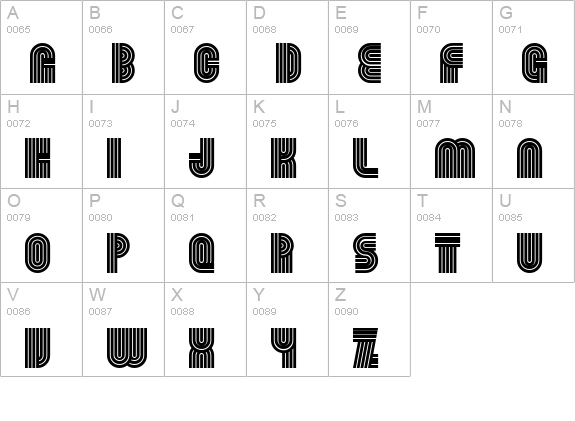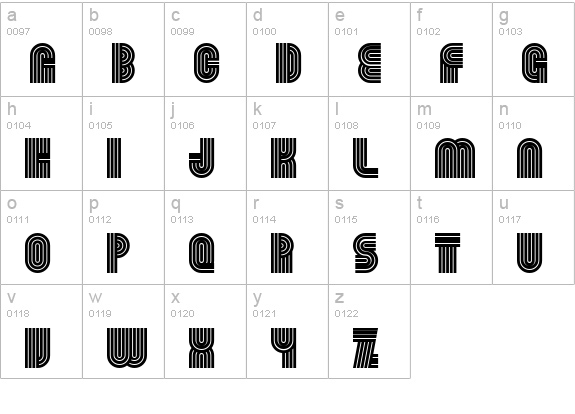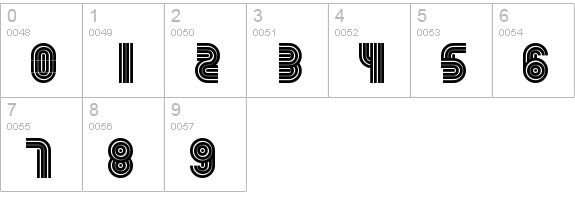
Beamie Font Details
Beamie font is a sleek and modern typeface that exudes elegance and sophistication. Its clean lines and unique design make it perfect for a wide range of design projects, from branding to packaging to web design. The versatile nature of Beamie font allows it to be used in various settings, adding a touch of class and style to any project. What sets Beamie font apart is not just its stunning aesthetics, but also the fact that it is completely free to download. Yes, you read that right - Beamie font is freely available to download at FontsMarket.com. This means that you can add this beautiful font to your collection without having to spend a dime, making it a valuable resource for designers and creatives looking to elevate their work without breaking the bank. Don't miss out on the opportunity to enhance your projects with the elegant and sophisticated Beamie font - download it for free today!